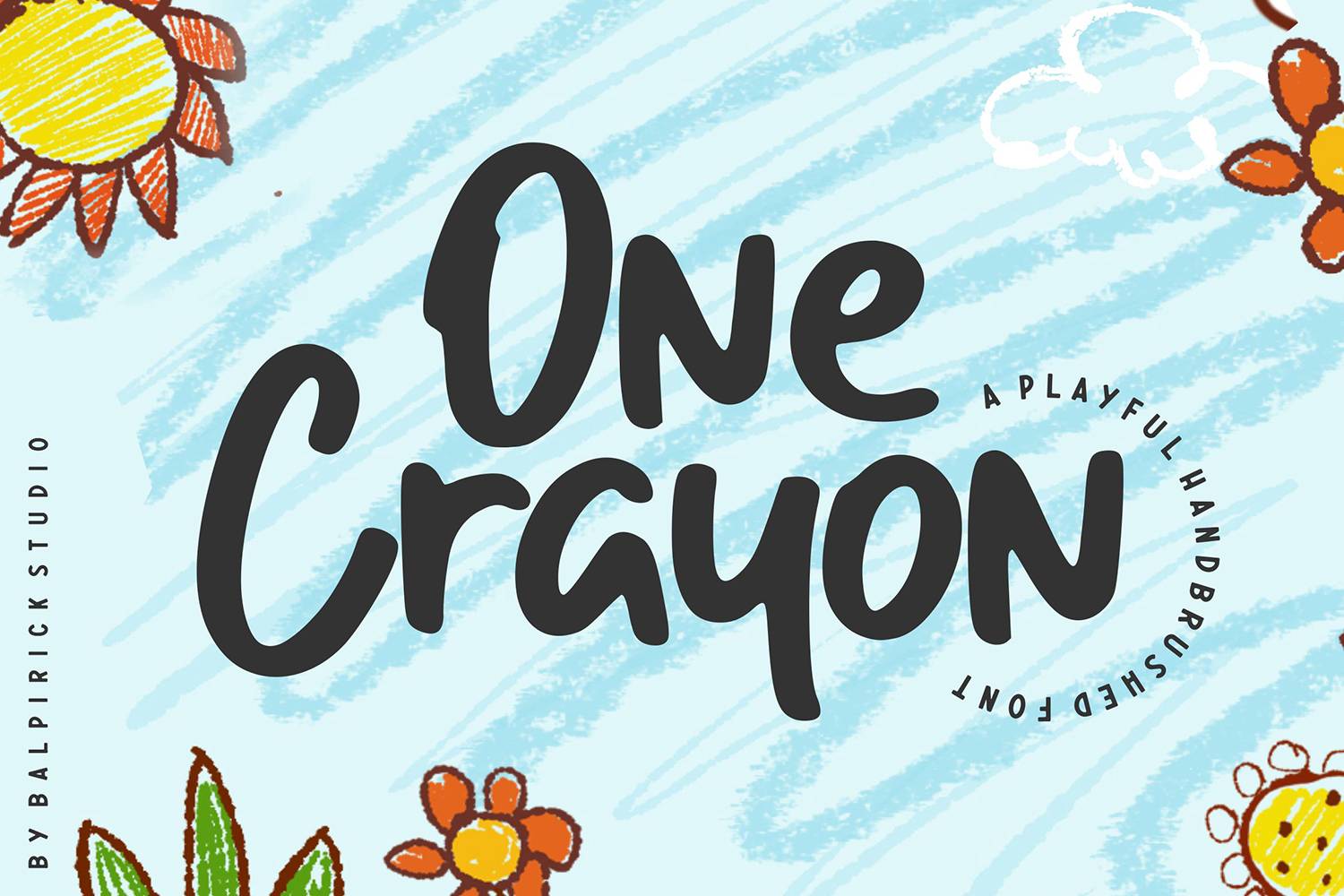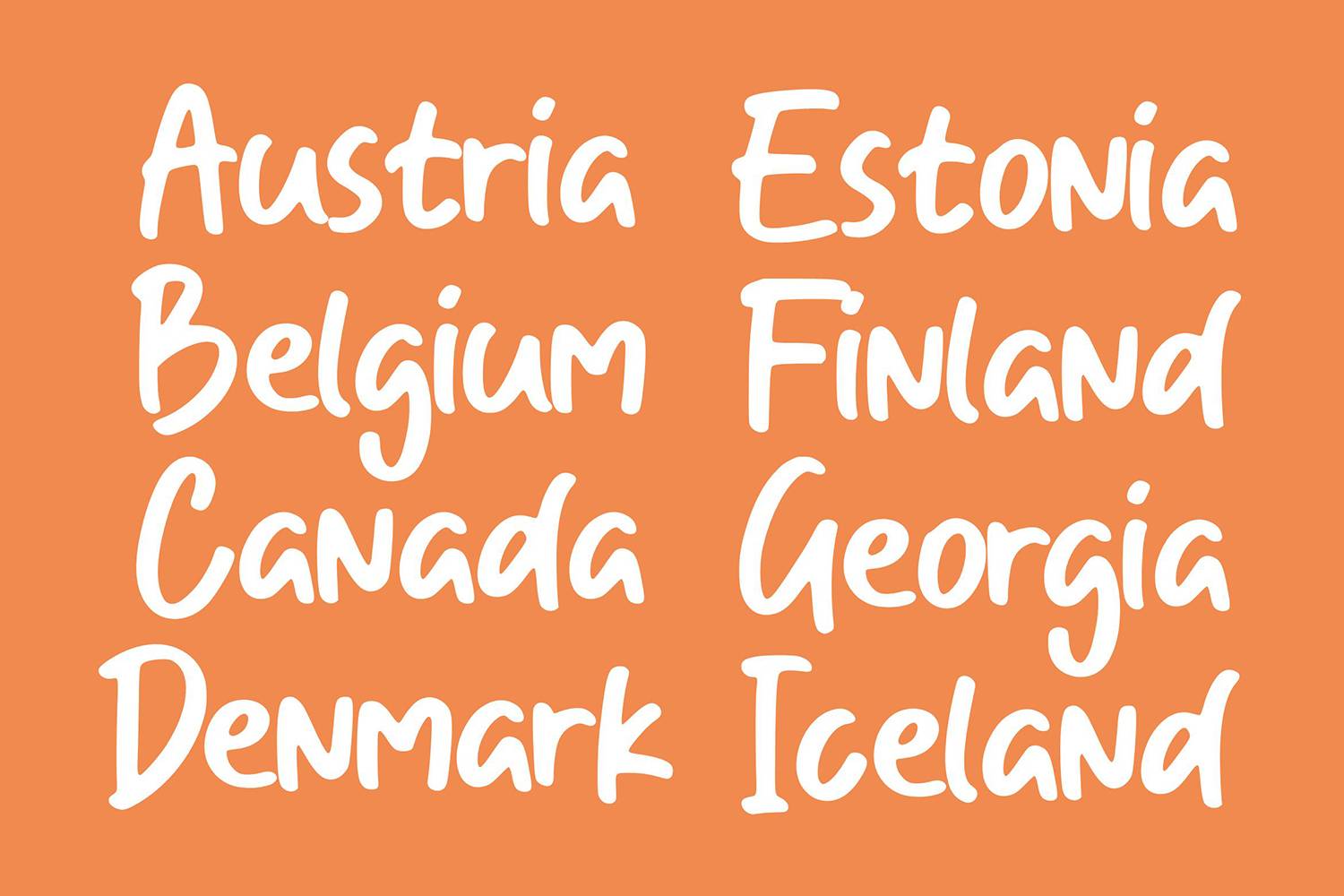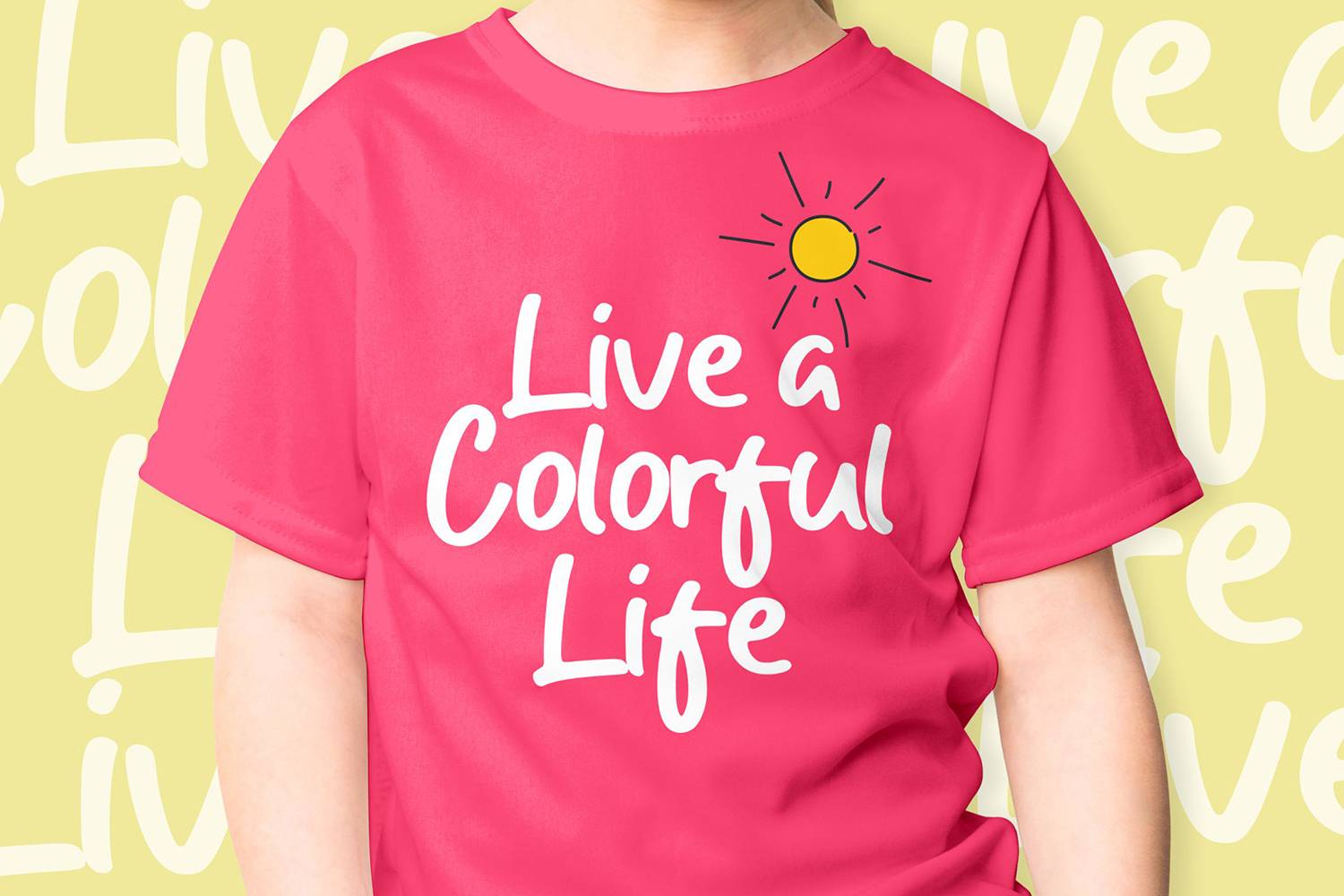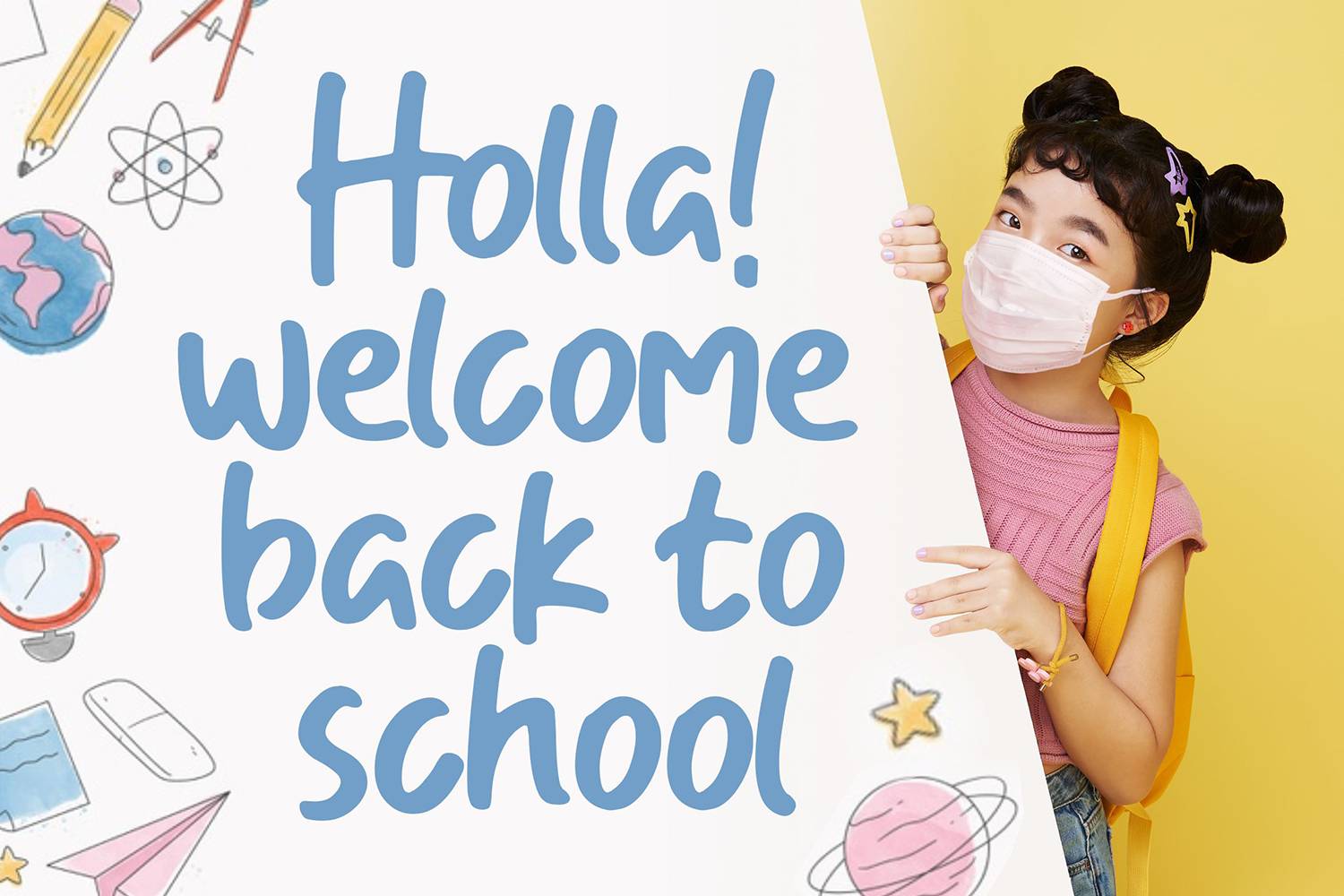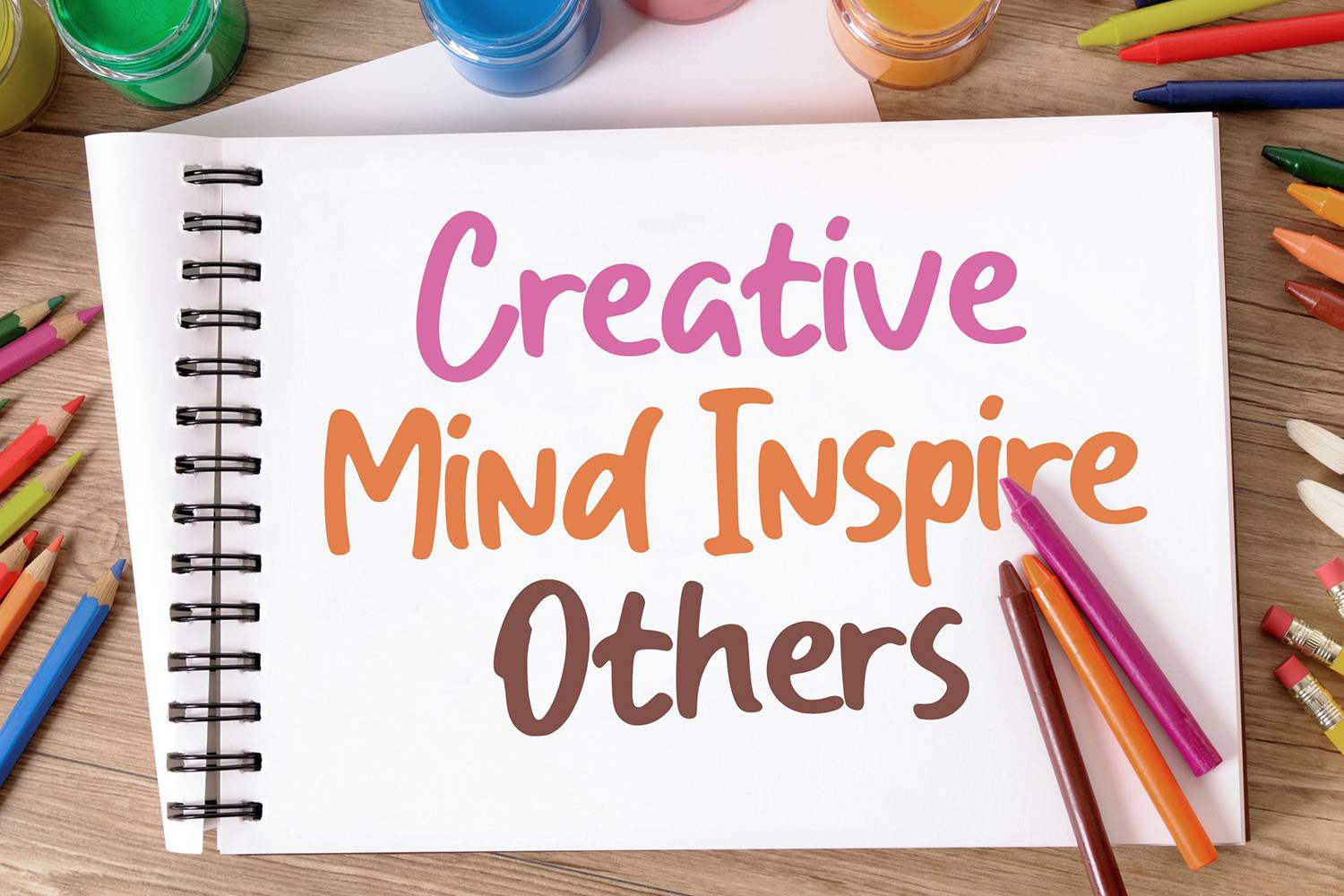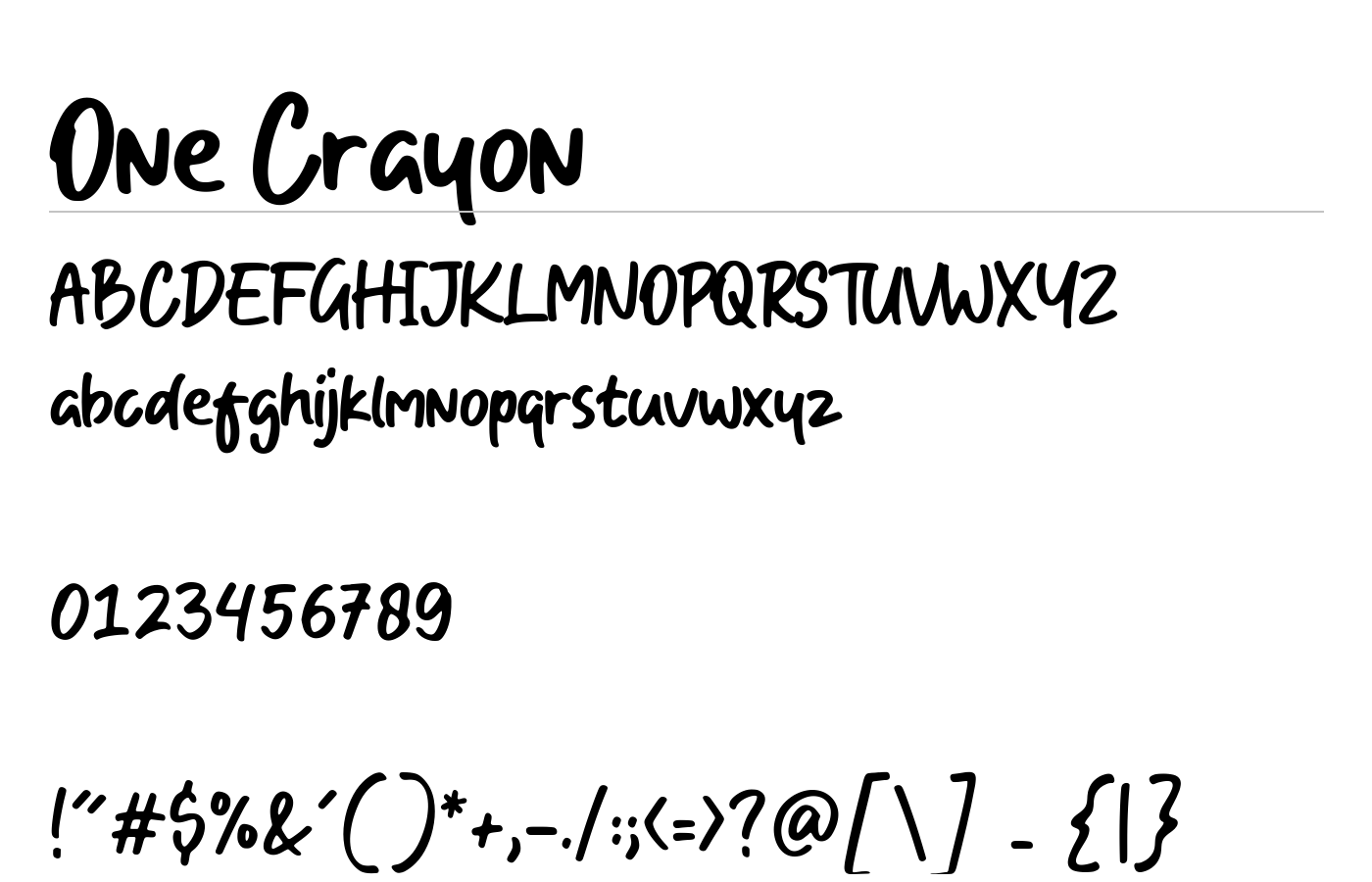
One Crayon is a playful, casual handwritten font with a friendly and approachable vibe. Its rounded, irregular strokes and medium weight give it an informal feel, perfect for projects that want to convey warmth and creativity. This font is ideal for children’s materials, creative branding, and any design that benefits from a human, hand-drawn touch.
One Crayon Font
About One Crayon Font
| Font family | One Crayon Font |